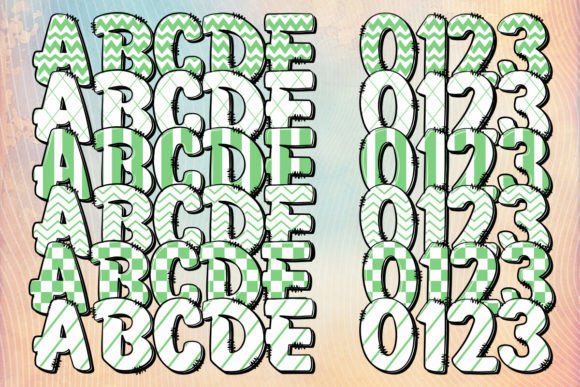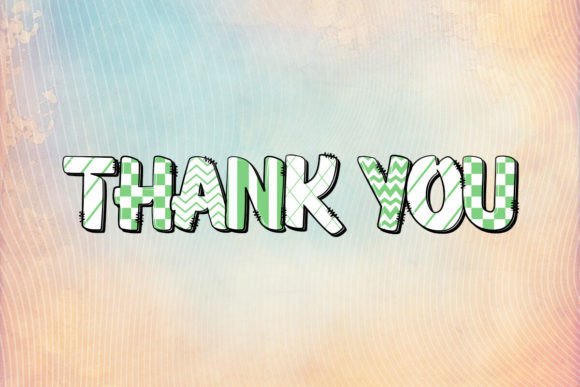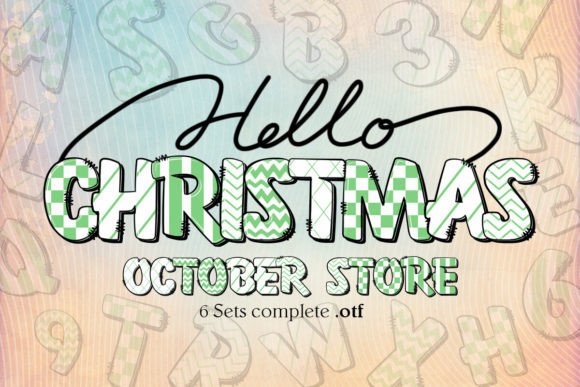
Deck the Halls with the Christmas Font Collection
It’s the most wonderful time of the year! As designers and crafters, you’re likely on the hunt for the perfect elements to make your holiday projects shine. Look no further than the Christmas Bundle Color Fonts, a six-pack collection that’s sure to bring festive flair to your creations. This exclusive bundle features six dynamic OTF Color Fonts, each bursting with its own unique character and charm.
Unleash Your Creativity with Christmas Fonts
Whether you’re designing t-shirts, mugs, digital graphics, crafts, or greeting cards, these decorative Christmas fonts are the perfect way to infuse your projects with the warmth and joy of the holiday season. Imagine being able to create stunning, one-of-a-kind designs that capture the essence of Christmas and leave a lasting impression on your audience. With this Christmas font collection, you can do just that.
What Sets These Fonts Apart
So, what makes these Christmas fonts so special? For starters, they’re incredibly versatile. Use them to create eye-catching designs for a variety of applications, from holiday cards and invitations to festive decorations and gifts. The black version of this font is compatible with Cricut Design Space and other cutting machines, making it perfect for crafters and DIY enthusiasts.
Bringing Your Designs to Life
So, how can you use these Christmas fonts to bring your designs to life? Here are a few ideas to get you started:
• Create stunning holiday cards and invitations that set the tone for your festive celebrations.
• Design eye-catching t-shirts, mugs, and other gifts that are sure to delight your friends and family.
• Develop digital graphics and social media assets that showcase your brand’s festive spirit.
• Make your own holiday decorations, such as signs, banners, and garlands, using your cutting machine and these beautiful fonts.
Why Choose the Christmas Font Collection?
With so many fonts on the market, why choose the Christmas Font Collection? Here are just a few reasons why these fonts stand out from the crowd:
• Unique and Exclusive: These six dynamic OTF Color Fonts are unlike anything you’ve seen before. Each font has its own distinct character and charm, ensuring that your designs will stand out from the crowd.
• High-Quality Design: Our fonts are designed with precision and attention to detail, ensuring that they look amazing in any context.
• Easy to Use: Whether you’re a seasoned designer or a crafting newbie, our fonts are easy to use and integrate into your workflow.
Get Ready to Make Your Holiday Designs Shine
The Christmas Font Collection is a must-have for designers and crafters looking to add a touch of festive flair to their holiday projects. With six dynamic OTF Color Fonts to choose from, you’re sure to find the perfect fit for your designs. So go ahead, unleash your creativity, and make this holiday season one to remember!